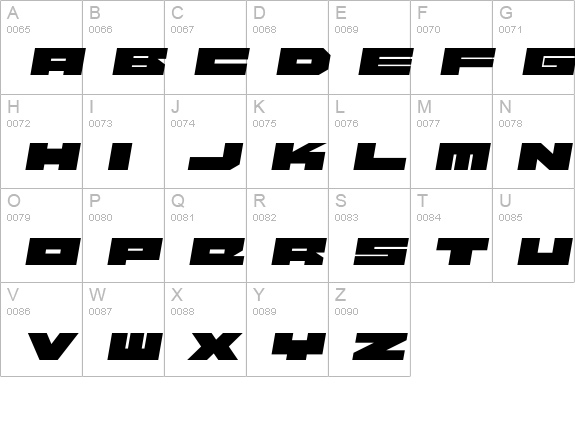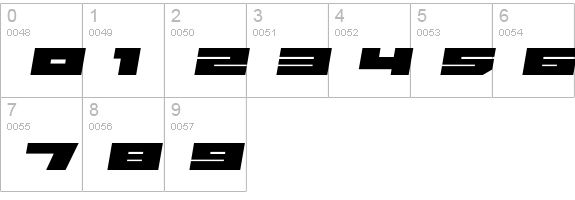
Beekman-SquareBoldItalic Font Details
Beekman SquareBoldItalic is a bold and dynamic font that exudes sophistication and modernity. Its sleek and elegant design makes it perfect for creating eye-catching headlines, titles, and other design elements that demand attention. The unique italicized style adds a touch of flair and personality to any project. What makes Beekman SquareBoldItalic even more appealing is that it is available for free download at FontsMarket.com. This means that you can easily access this stunning font and incorporate it into your designs without any cost. Whether you're working on a professional project or a personal creative endeavor, Beekman SquareBoldItalic is sure to elevate your work with its bold and stylish appearance.